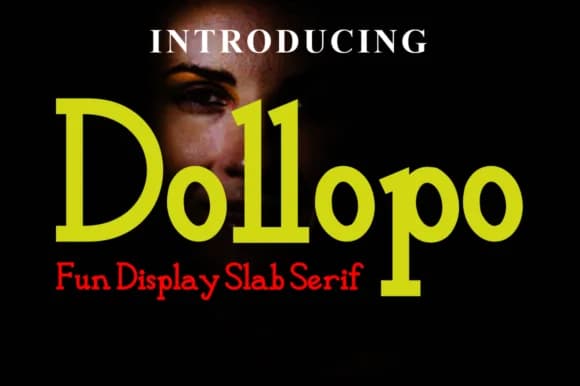
Picture yourself laying out a wine label for a small-batch vineyard, something that needs modern sensibility with a touch of nostalgia. That's exactly where Dollopo lands. Designed by Gatra Std, this slab serif sits comfortably between contemporary and vintage, making it unexpectedly useful across a wide range of print applications.
Slab serifs like this work well in display because they carry real weight without feeling oppressive or dated. You'll reach for Dollopo when designing restaurant menu covers, craft beer labels, boutique skincare packaging, or wedding invitation suites. The sturdy blocky serifs give these kinds of projects real authority, but the generous internal spacing keeps everything legible and inviting, even when you push the size up for major headlines. It reads as both authentically professional and approachable, which is rarer than you'd expect.
- Sturdy, Confident, Display
Dollopo Font is a slab serif font that shines as a display or heading face. Pair it with a clean sans-serif or serif font for body text β the contrast creates a clear hierarchy while the two styles stay balanced and easy to read.